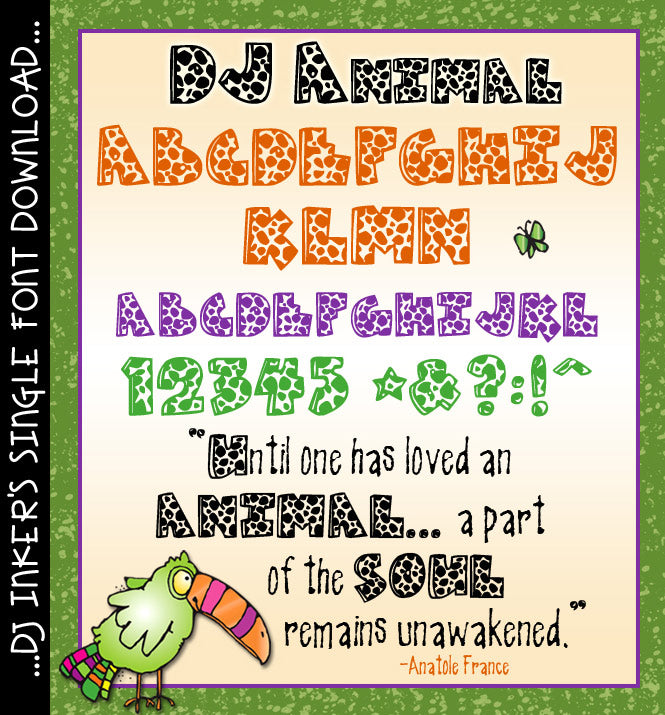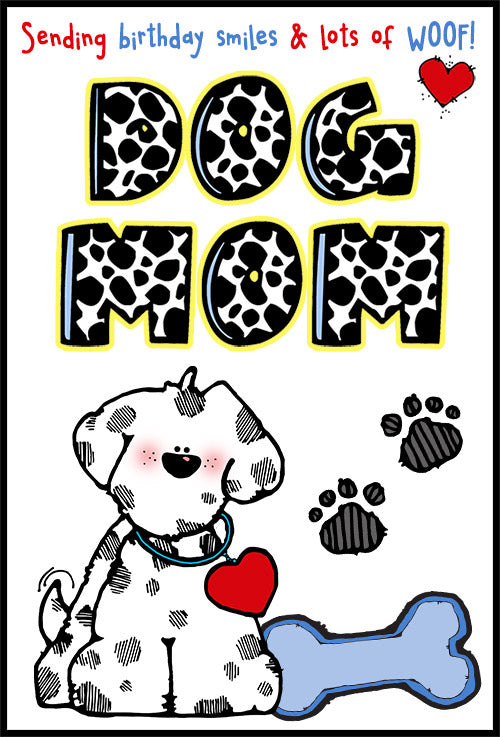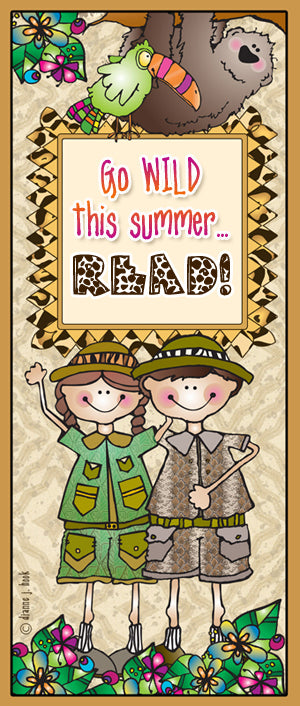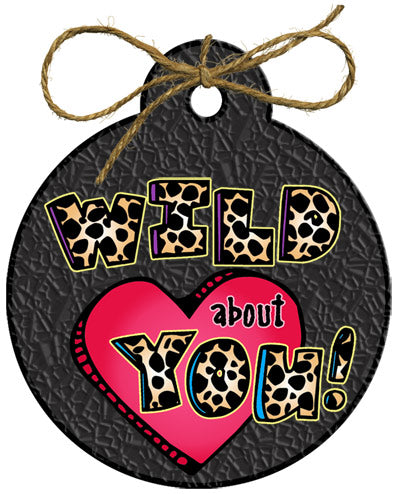
DJ Animal Font Download
Check-out this WILD font! You'll love typing with 'DJ Animal' on
any project that includes a critter. This fun animal print is purrrrfect
for zoo day, animal reports, creations with your pets and more! This
headline font looks best in larger sizes & bold colors. Think giraffe,
Dalmatian or wild cat for color inspiration.